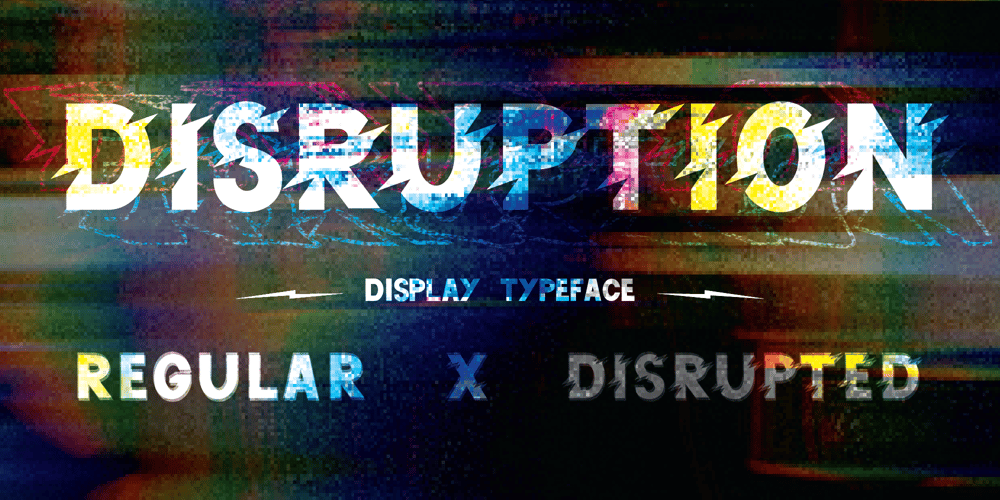
Disruption Sans Font Family was designed by Toby Bennett and published by Salty Sweet Creative. Disruption Sans contains 2 styles and family package options. A hand crafted bold and impactful capitalised display font in two styles (Disrupted and Regular). with clean edges and a dystopian cyberpunk vibe to the disrupted version its perfect for futuristic designs or use the regular for your everyday type needs!–Uppercase